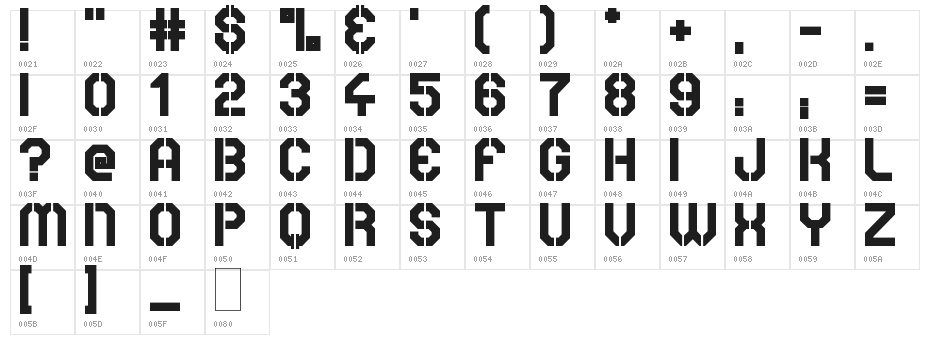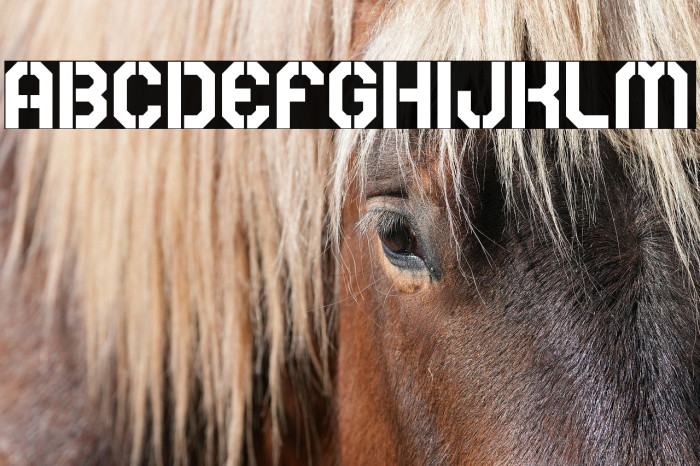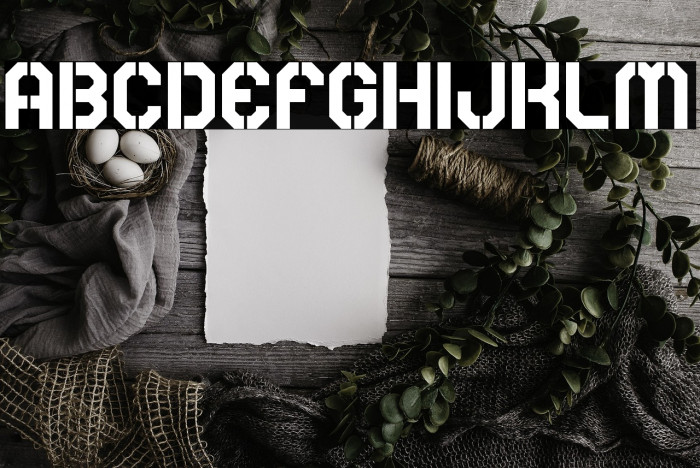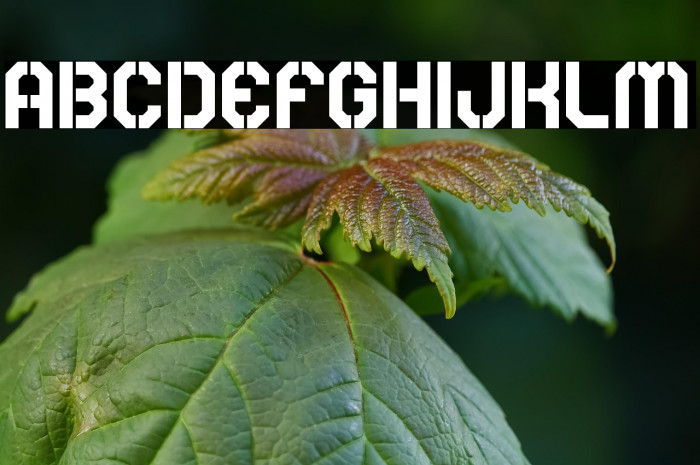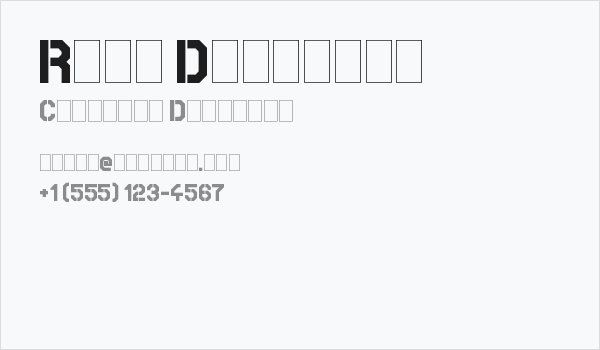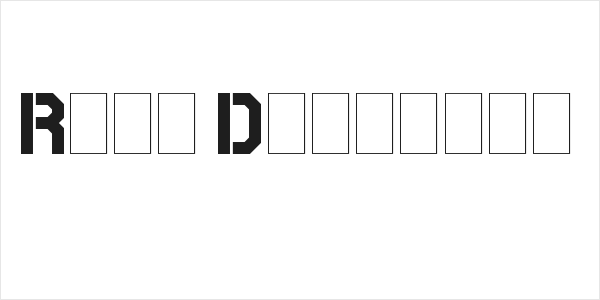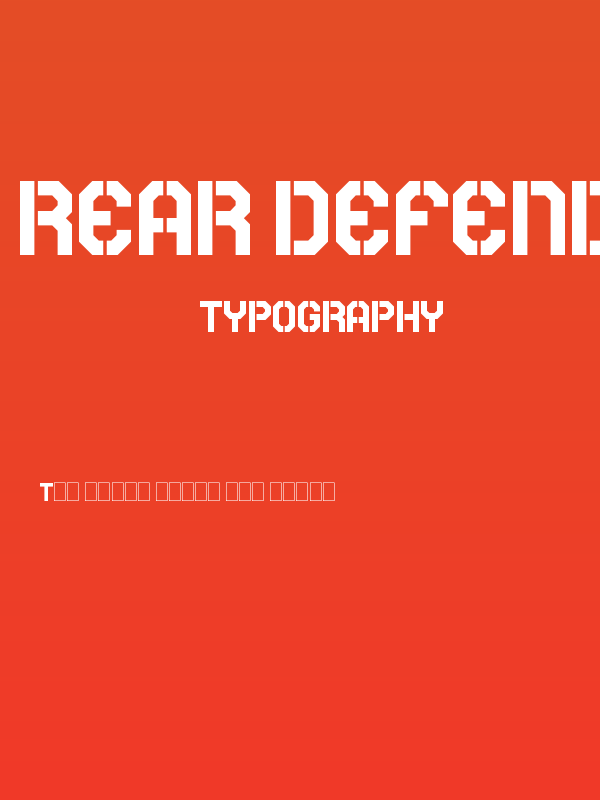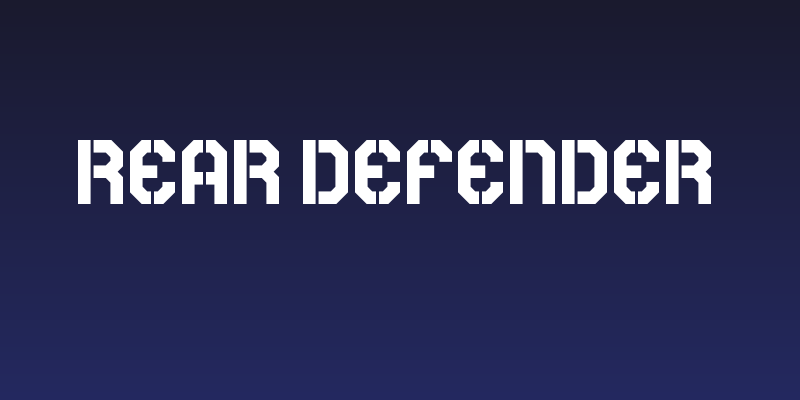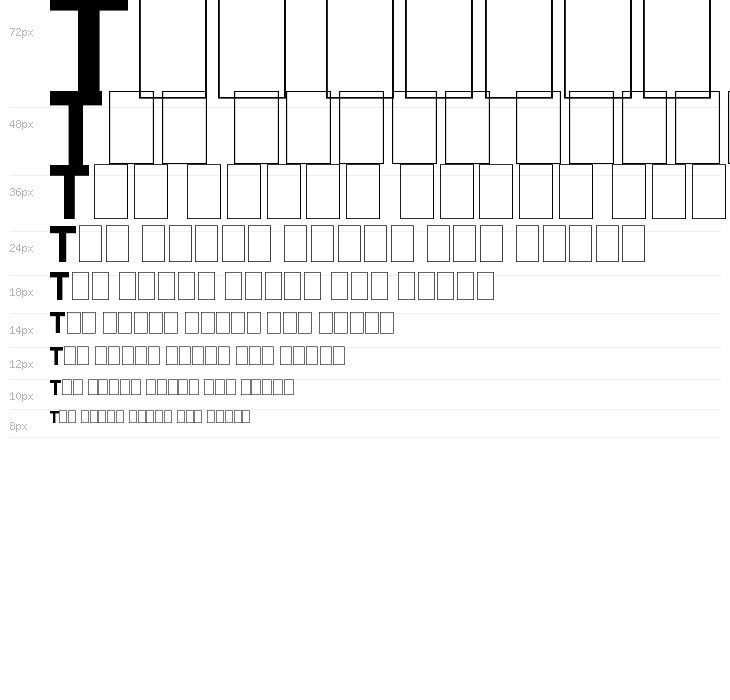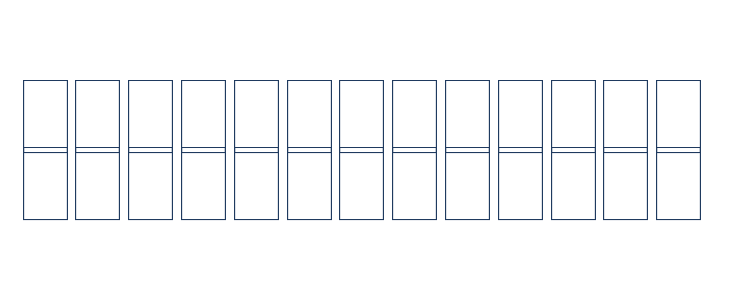
Rear Defender Font
Rear Defender Description
This font features a bold, geometric design with a strong, industrial feel. The characters are constructed with sharp angles and straight lines, creating a sense of strength and modernity. The uppercase and lowercase letters maintain a consistent style, with a uniform height and width that enhances readability. The numbers and special characters follow the same design principles, ensuring a cohesive look across all text elements. The font's unique style makes it suitable for projects that require a futuristic or tech-inspired aesthetic.
| Proposed Projects | Ideal for technology branding, futuristic posters, video game titles, and industrial-themed designs. |